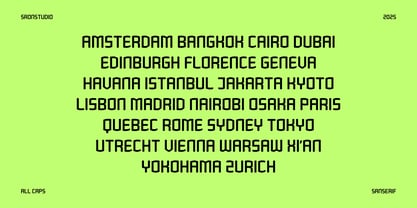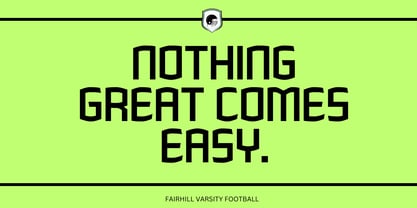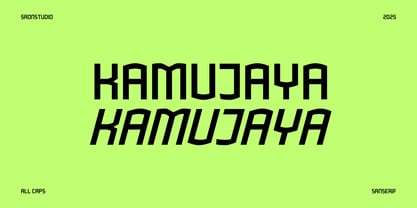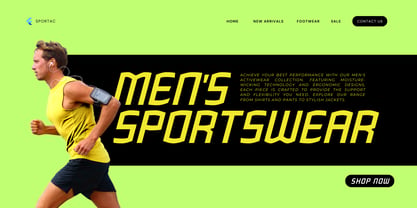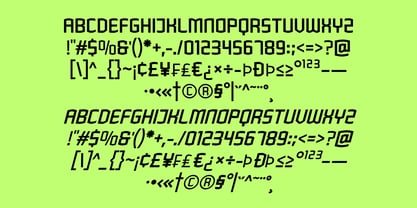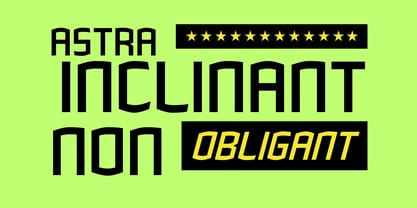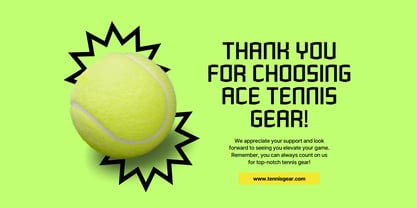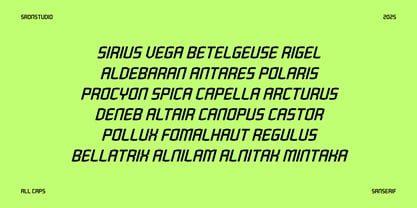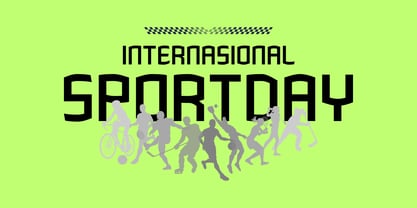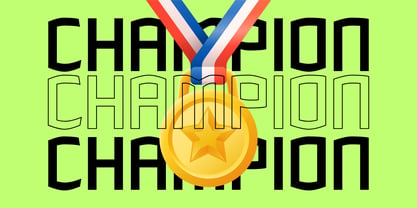
Kamujaya
by Sronstudio
Kamujaya is a clean and versatile sans serif font designed for modern and timeless appeal. With its balanced proportions, sharp edges, and excellent readability, this font is perfect for branding, logos, headlines, posters, editorial layouts, and digital designs. Its minimal yet strong style makes it adaptable for both professional and creative projects, giving your work a confident and contemporary look.
- All Caps
- Numerals & punctuation
- Multilingual support